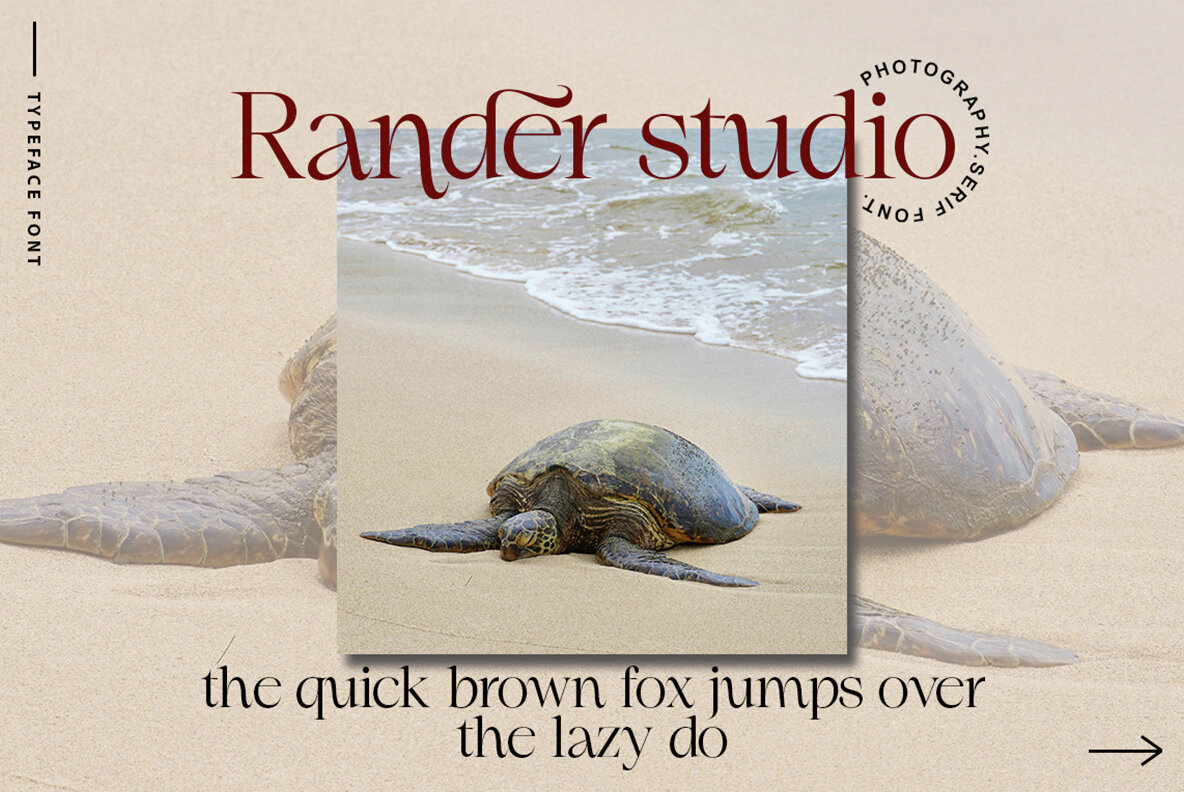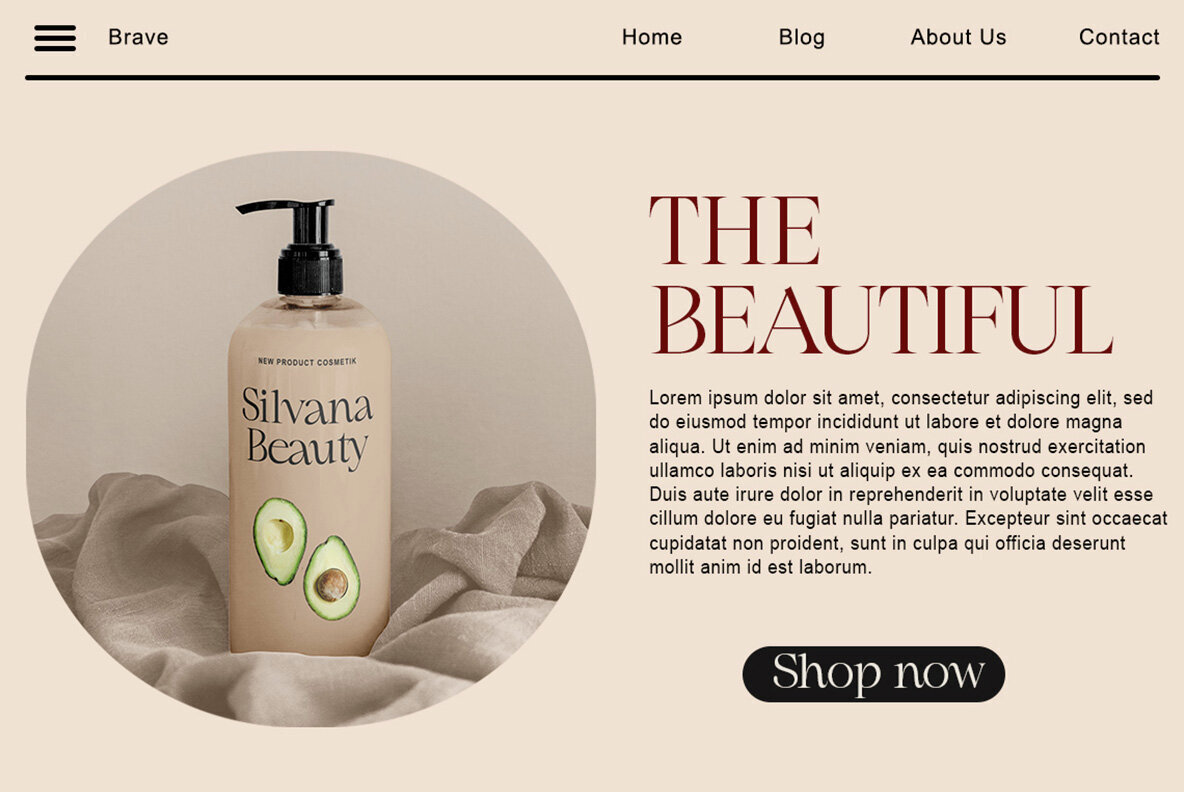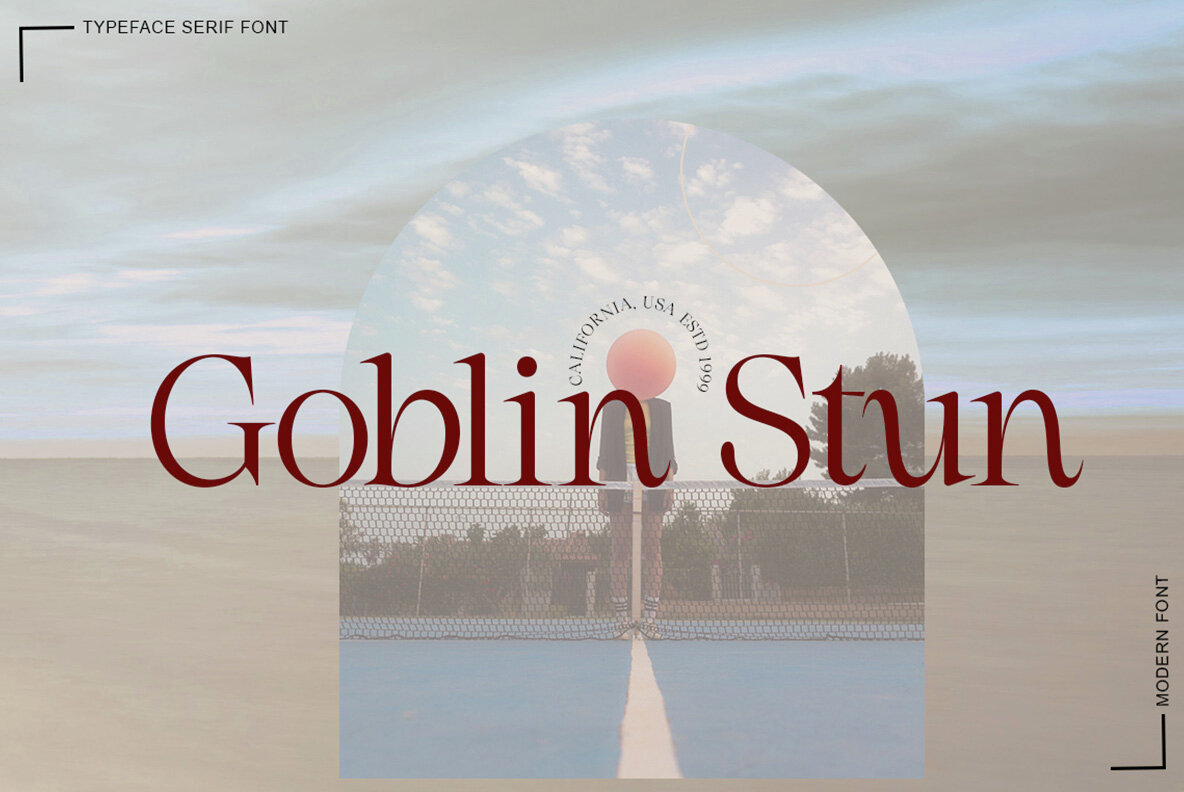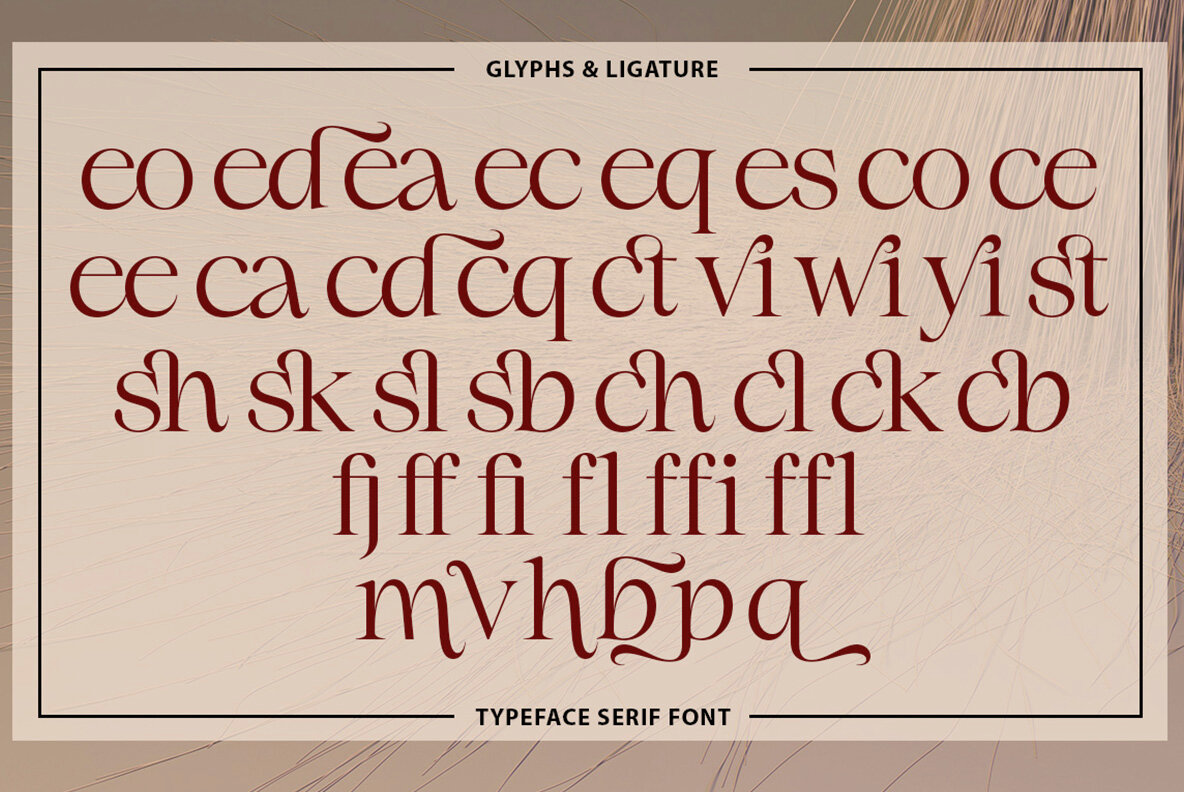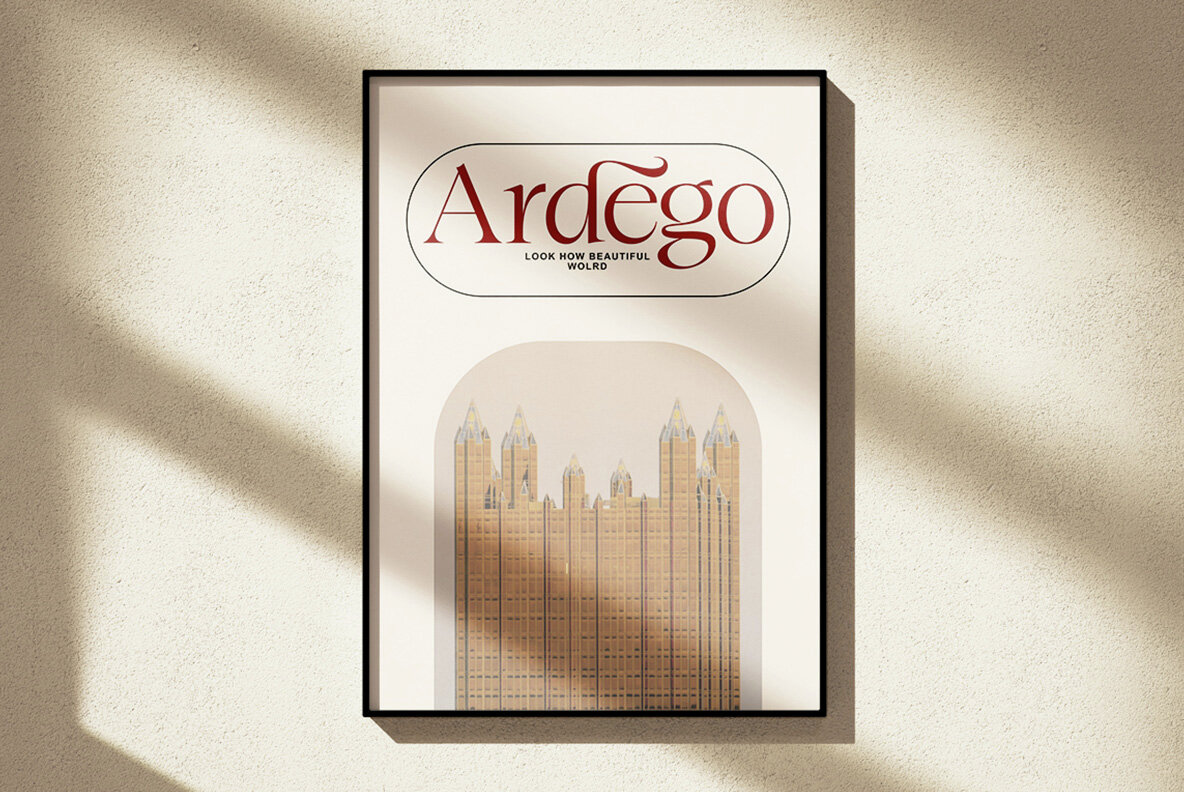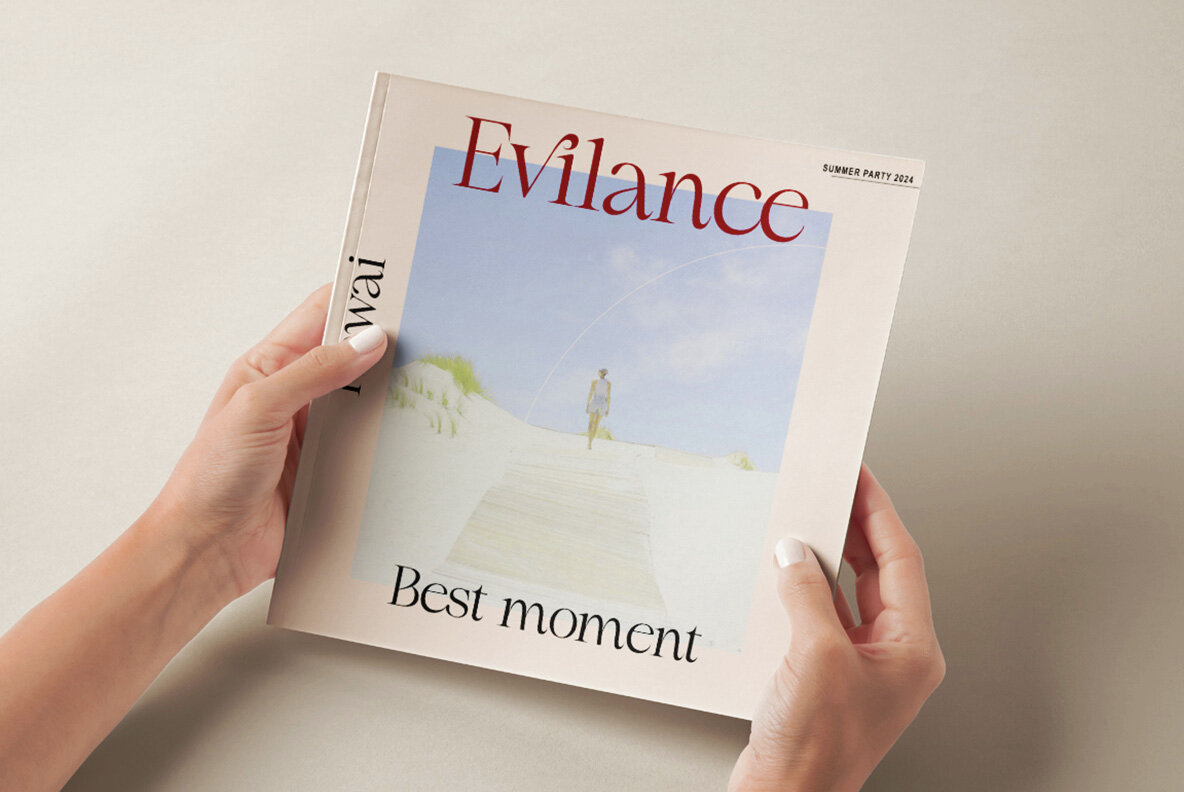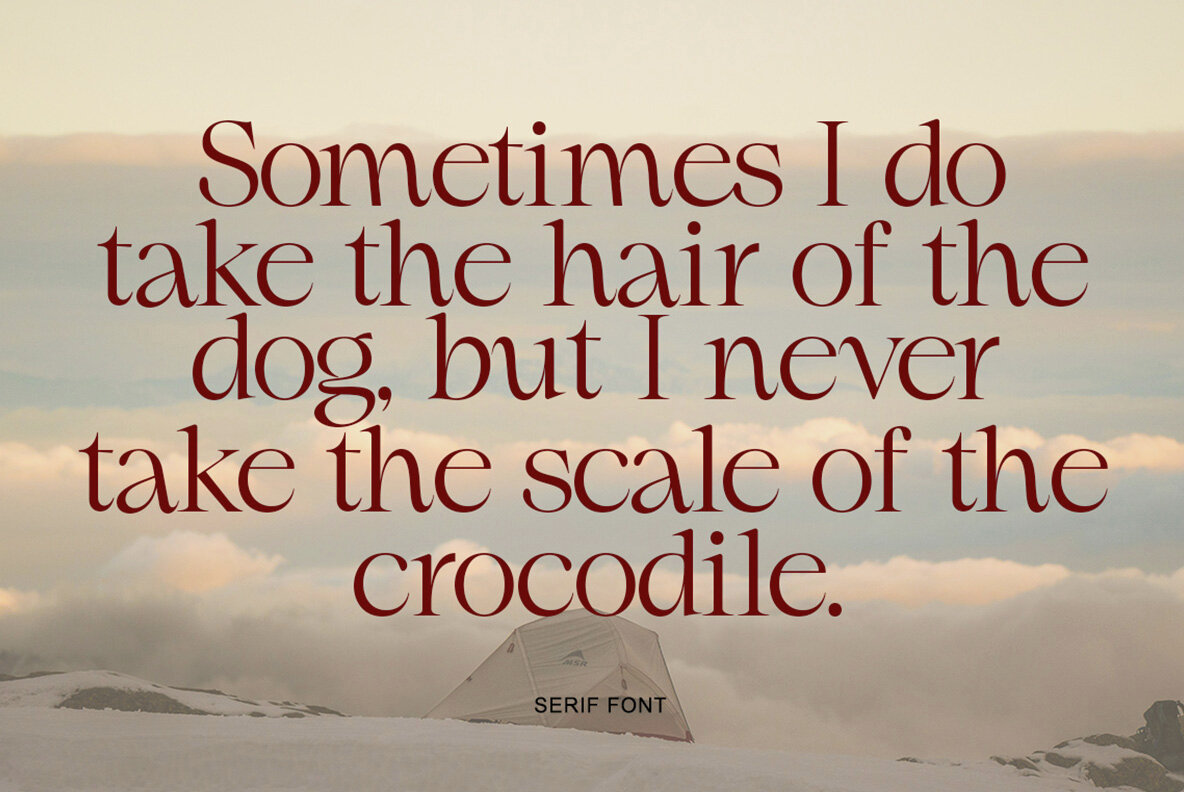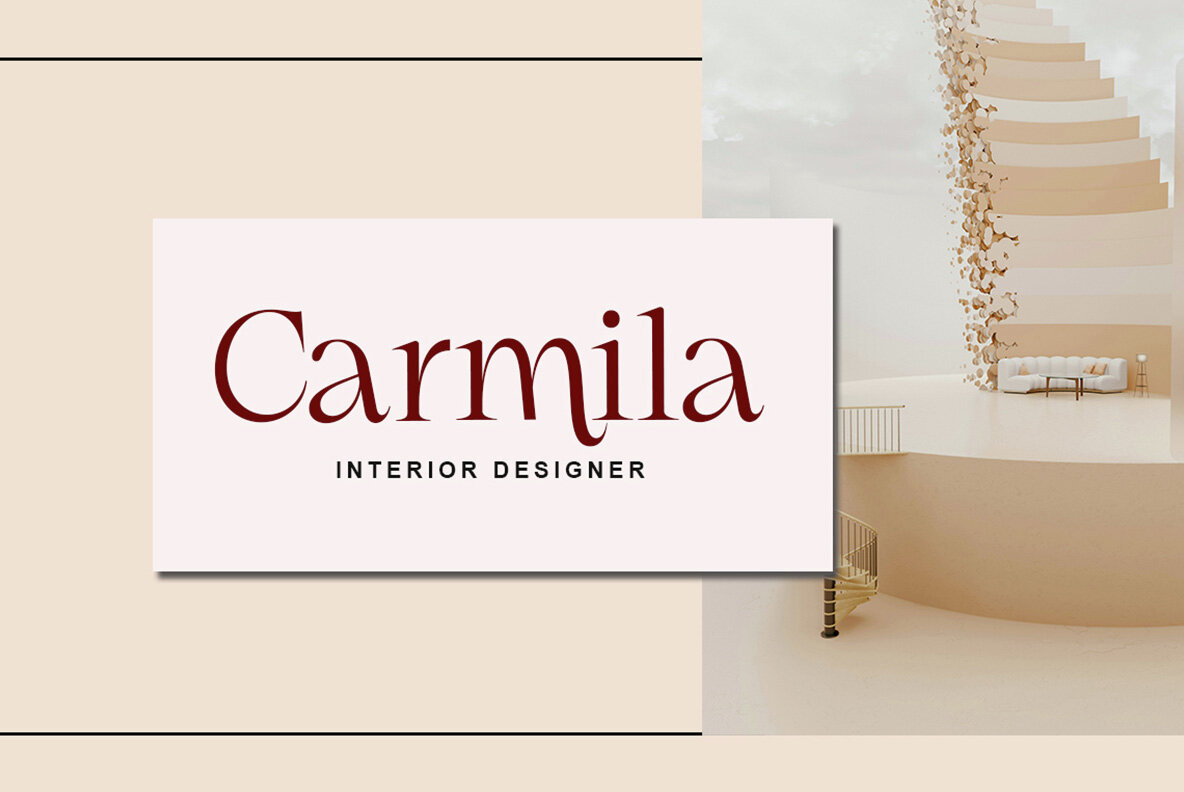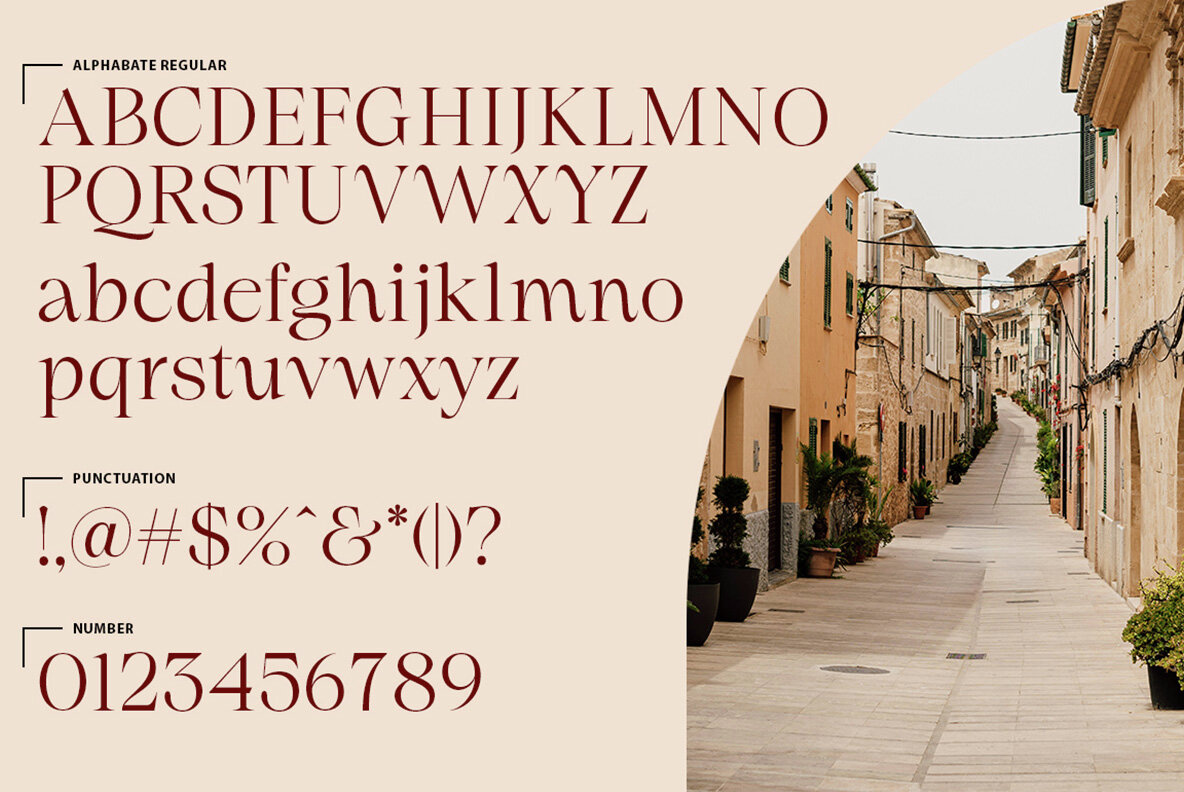
Marcky Font
Marcky Regular
Marcky is a font that exudes a playful and casual handwritten vibe. With its characters resembling a freely and relaxed writing style, it adds an informal and friendly feel to any design. The uneven line thickness and slightly tilted letter shapes provide a dynamic and lively look, making it stand out in various design settings.
Ideal for projects needing a personal and creative touch, Marcky is perfect for invitations, greeting cards, posters, and other artistic endeavors. Its unique visual appeal ensures your designs are approachable and engaging, resonating well with audiences looking for a personal and informal touch.